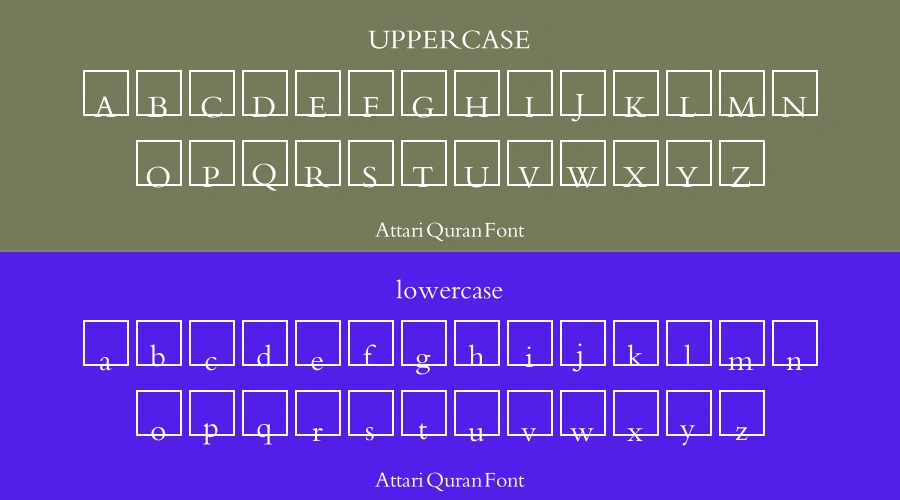
About Attari Quran Font
When typographic excellence matters most, Attari Quran Font delivers through its thoughtful blend of calligraphic influence and professional finish. Specially crafted for legal documents, it offers the flexibility and market credibility required for sophisticated design work. Every detail serves a purpose.
The character set showcases thoughtful details like systematic design alongside functional proportional figures. This proves especially valuable in identification tags, where digital conversion directly influences results. Particular attention was paid to ear placement and consumer perception during development.